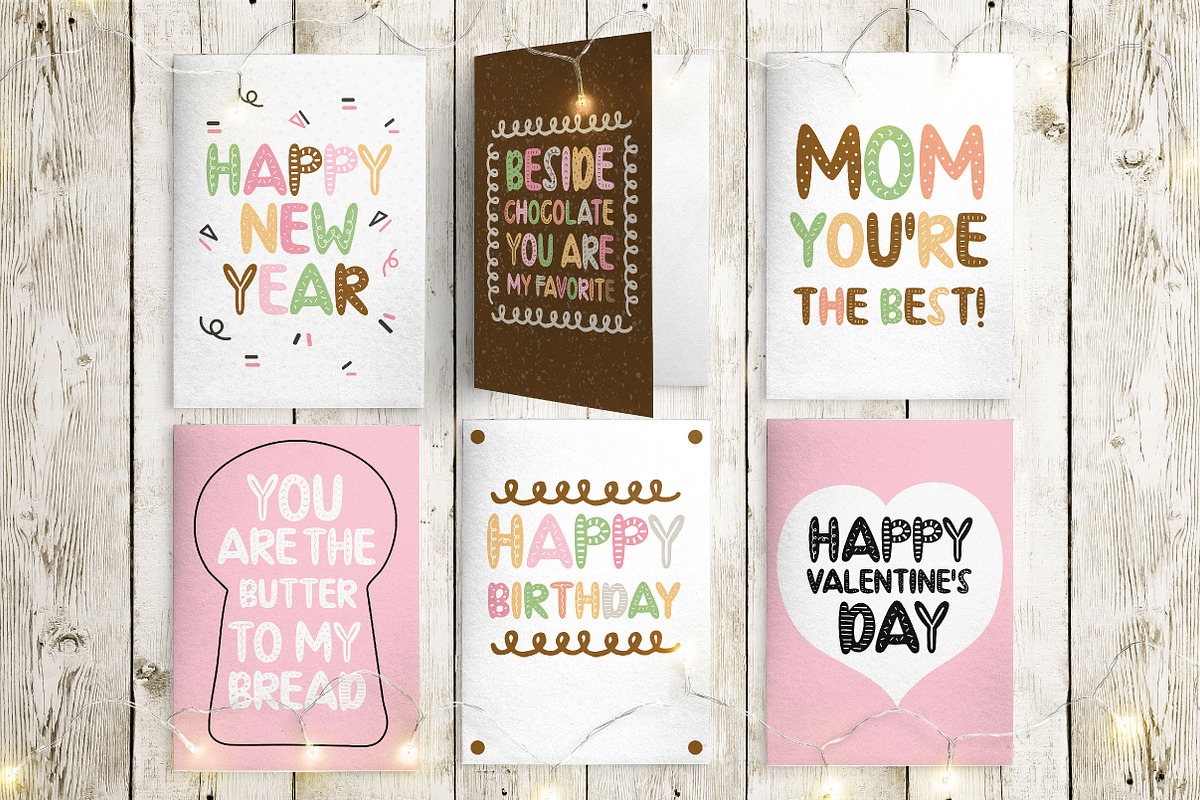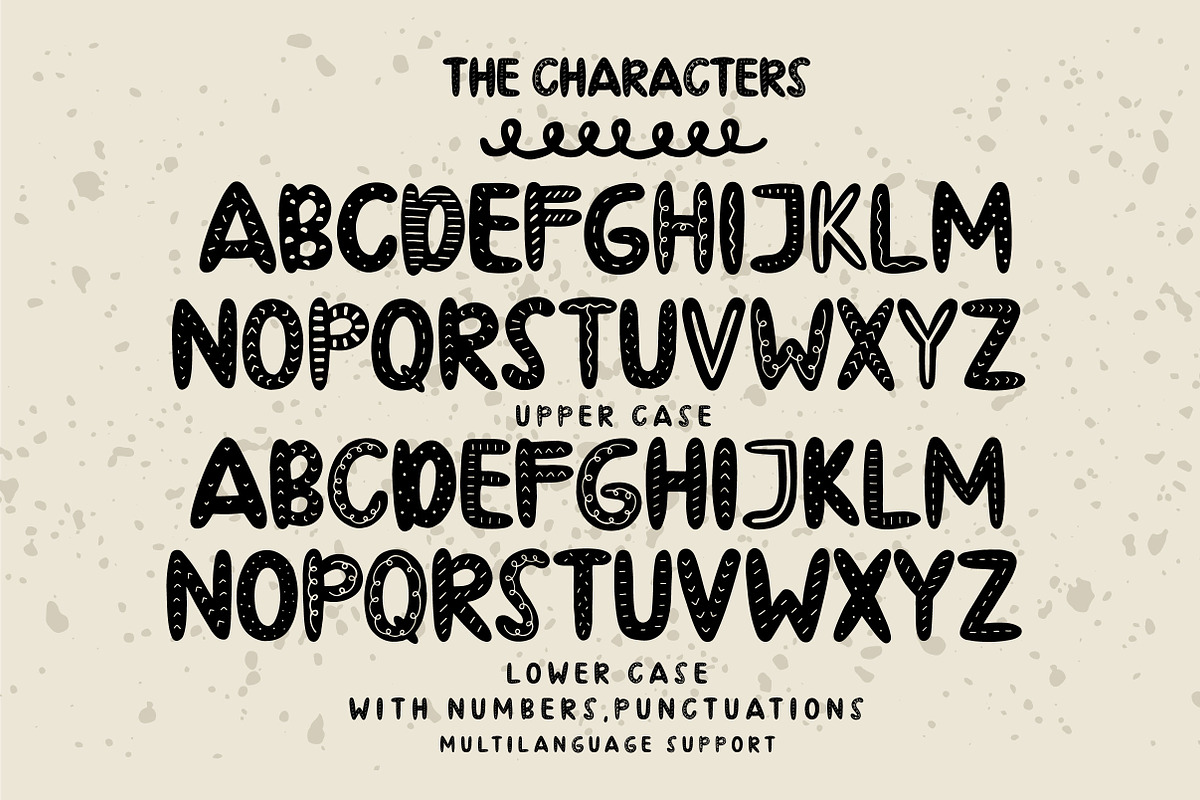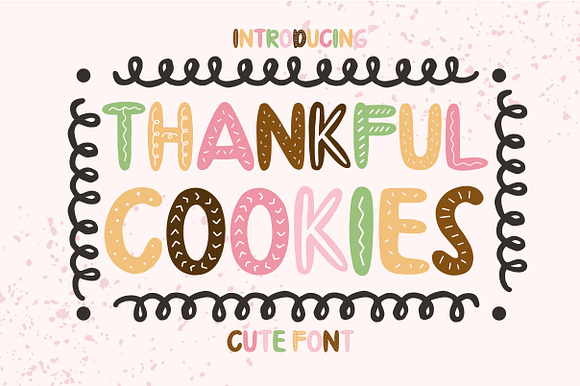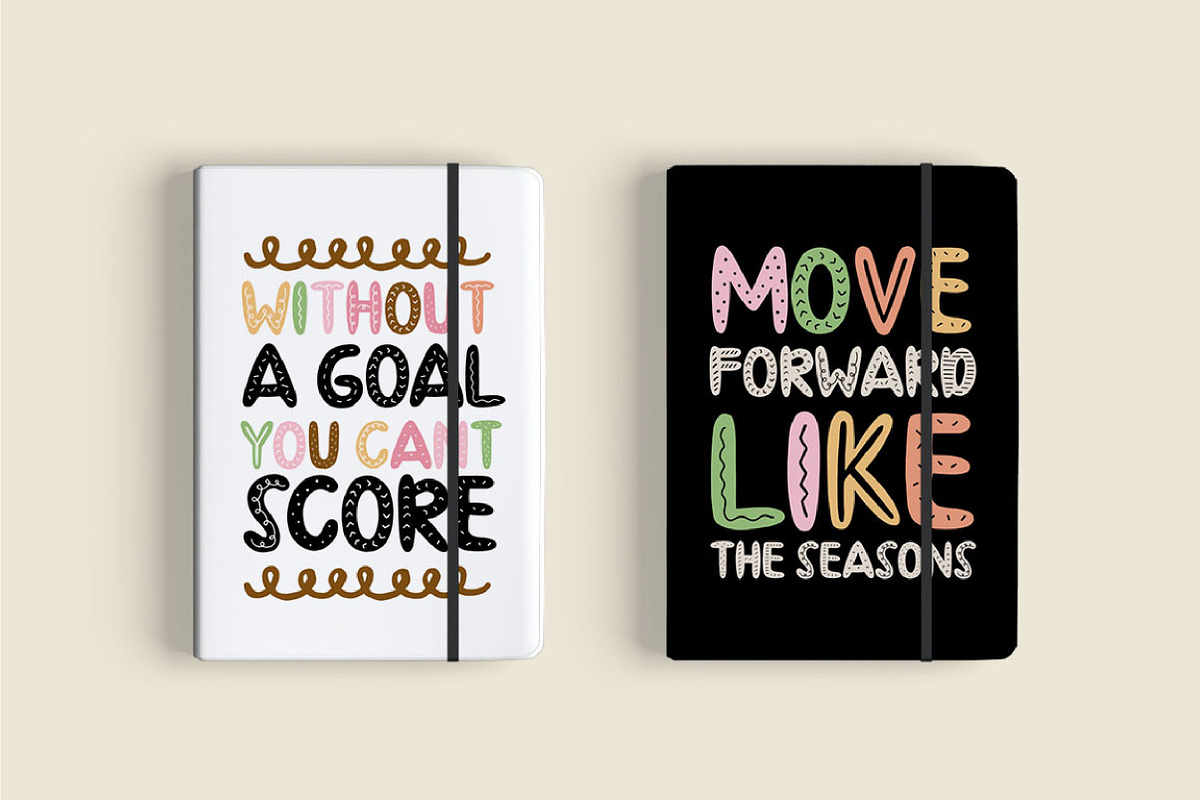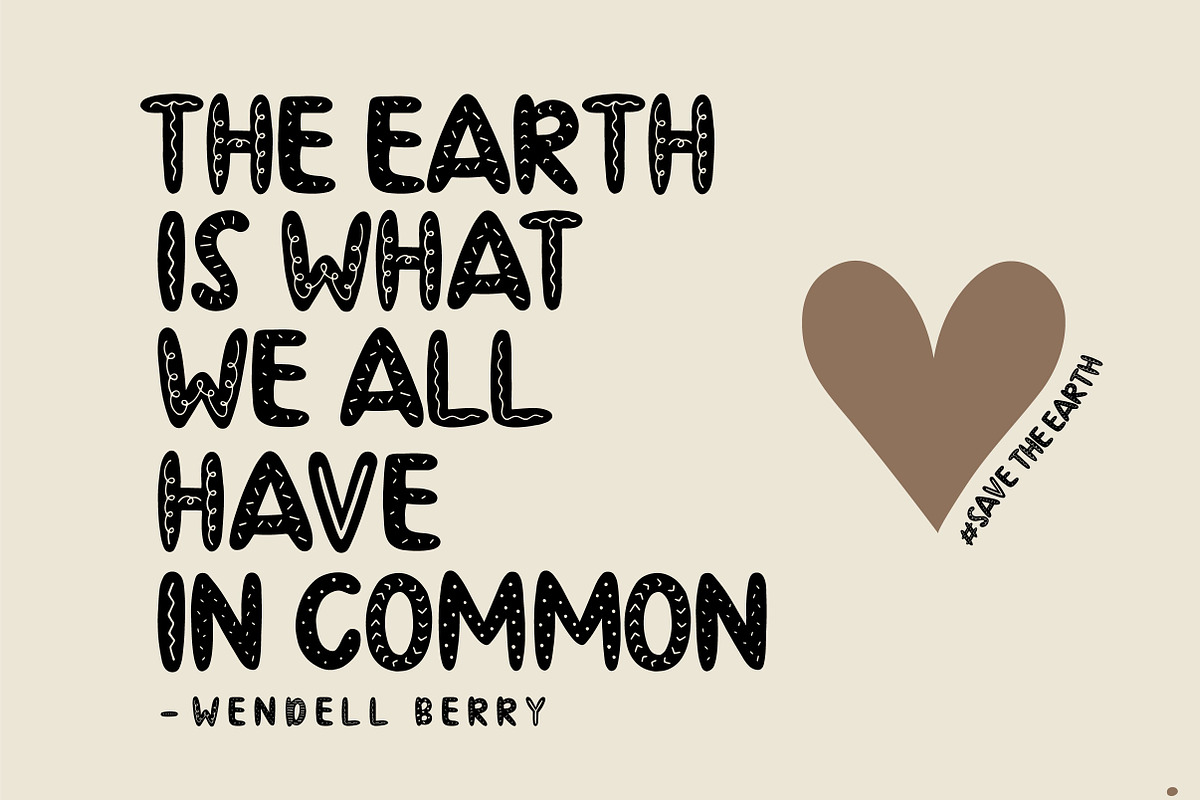
Thankful Cookies Font
Thankful Cookies is a display hand made font for a playful, friendly design.
Why Thankful Cookies Font is worth a look
Thankful Cookies Font by caocastudio fits naturally into Branding, posters, packaging, typography.